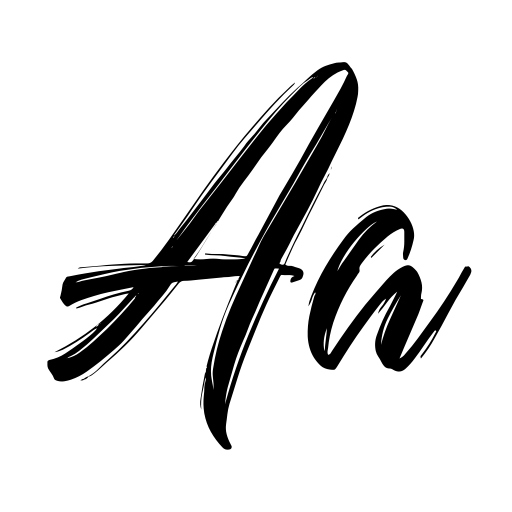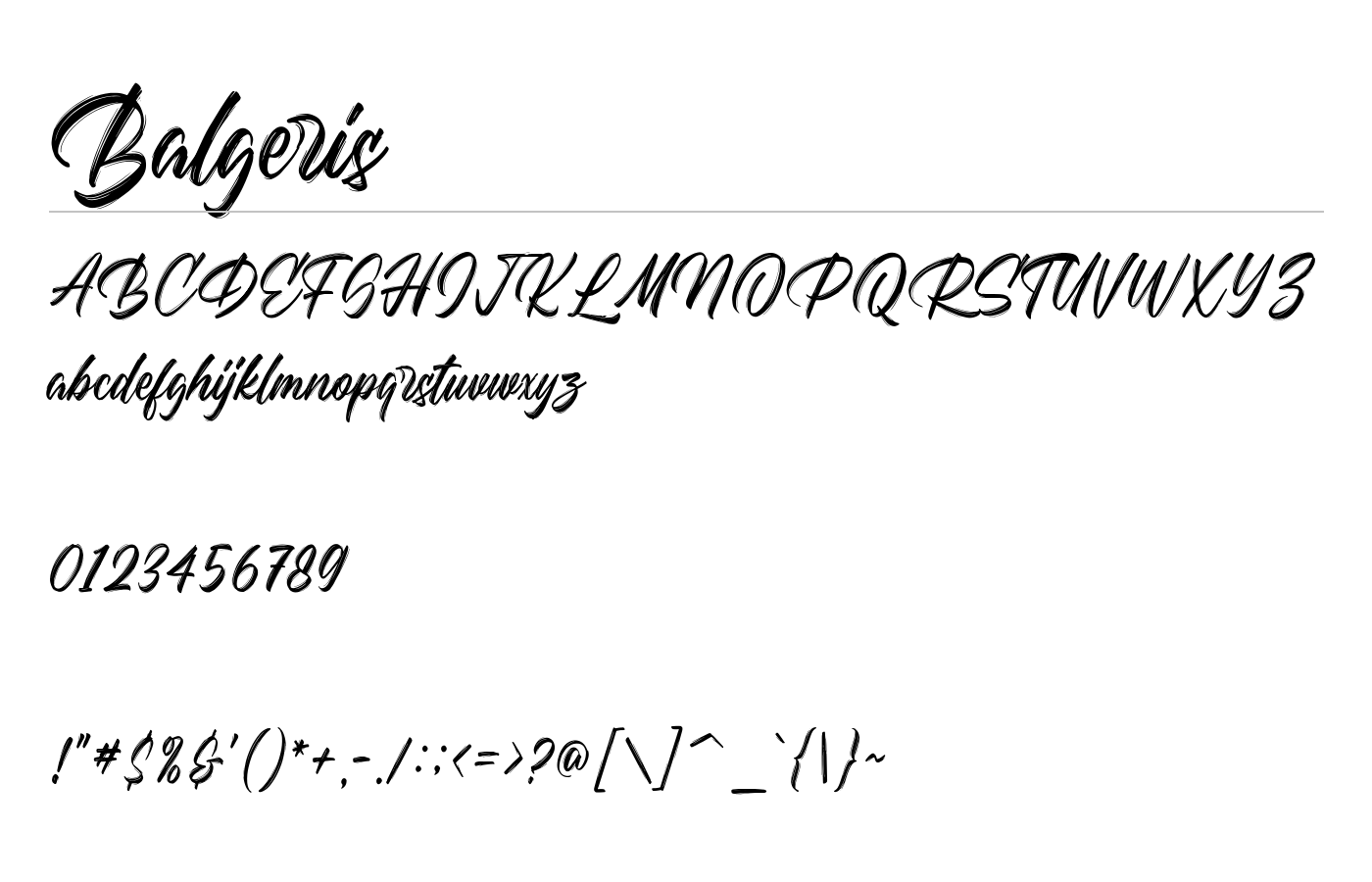
Balgeris is an elegant script font with a dynamic, hand-brushed style that conveys creativity and energy. Its smooth, flowing letterforms and moderate contrast make it perfect for adding a personal and artistic touch to branding, invitations, and headlines. This font works especially well where a lively yet refined handwriting feel is desired, enhancing projects with a sense of style and sophistication.
Balgeris Font
About Balgeris Font